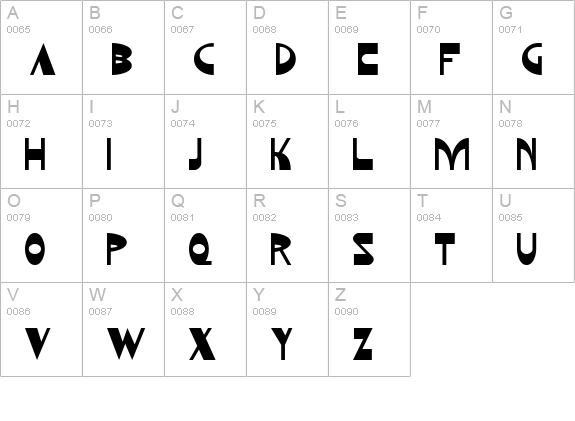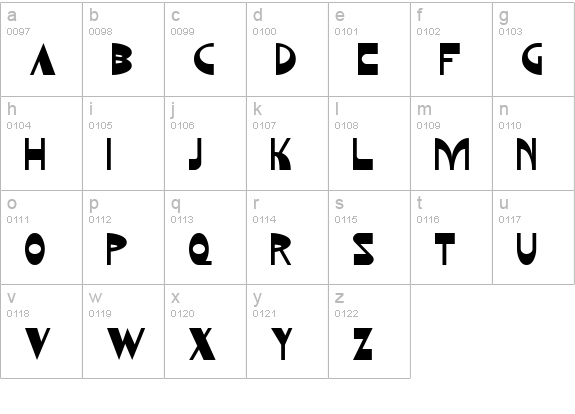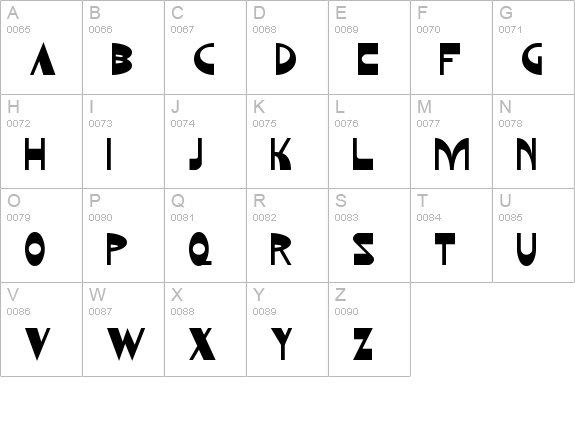
Kozmonauta 2 Font Details
Kozmonauta 2 is a modern and stylish font that exudes a sense of adventure and innovation. With its sleek lines and futuristic design, this font is perfect for projects that require a contemporary and space-inspired look. Whether you're working on a sci-fi poster, a technology website, or a branding project for a forward-thinking company, Kozmonauta 2 will make your text stand out. What's even better is that Kozmonauta 2 is completely free to download at FontsMarket.com. This means you can easily access this dynamic font and use it in your creative projects without any cost. Don't miss out on the opportunity to add a touch of modernity and excitement to your designs with Kozmonauta 2. Download it today and let your creativity soar to new heights.